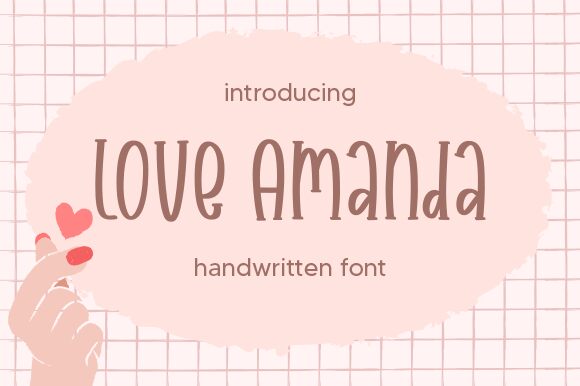
Love Amanda is a playful and quirky display font designed by Nirmala Creative. Its unique comic style and semi-light weight make it perfect for projects that aim to evoke a sense of joy and lightheartedness. The extra-condensed width ensures that the font takes up minimal space, making it ideal for designs that require a lot of text in a small area. Love Amanda is suitable for a wide range of projects, from children's books to social media graphics and advertising campaigns. Let this charming typeface bring some fun into your next project!